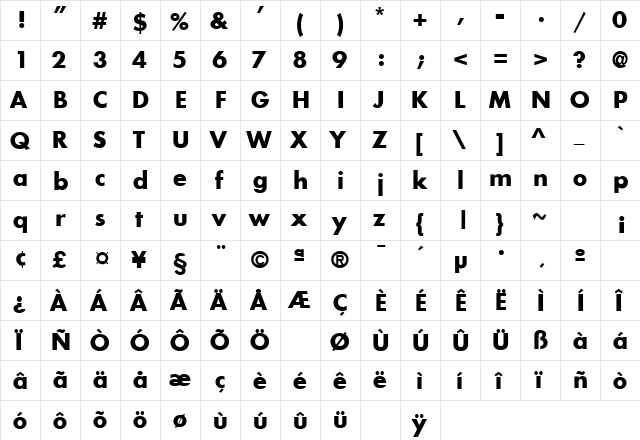
Intrepid Bold
Design Context for Intrepid Typeface
Intrepid offers clean, dependable letterforms without strong stylistic allegiance, making it a practical choice for designers who need flexibility. The heavy weight commands attention and anchors typographic hierarchies.
Pro Tip: Use Intrepid in both headline and body roles to test its range before committing to a single application.